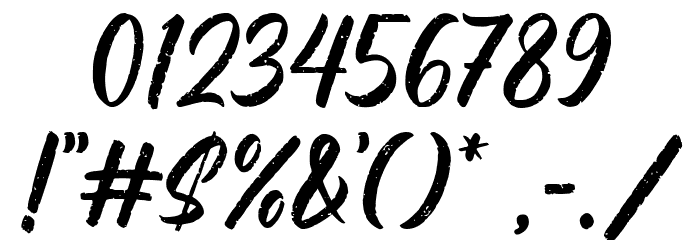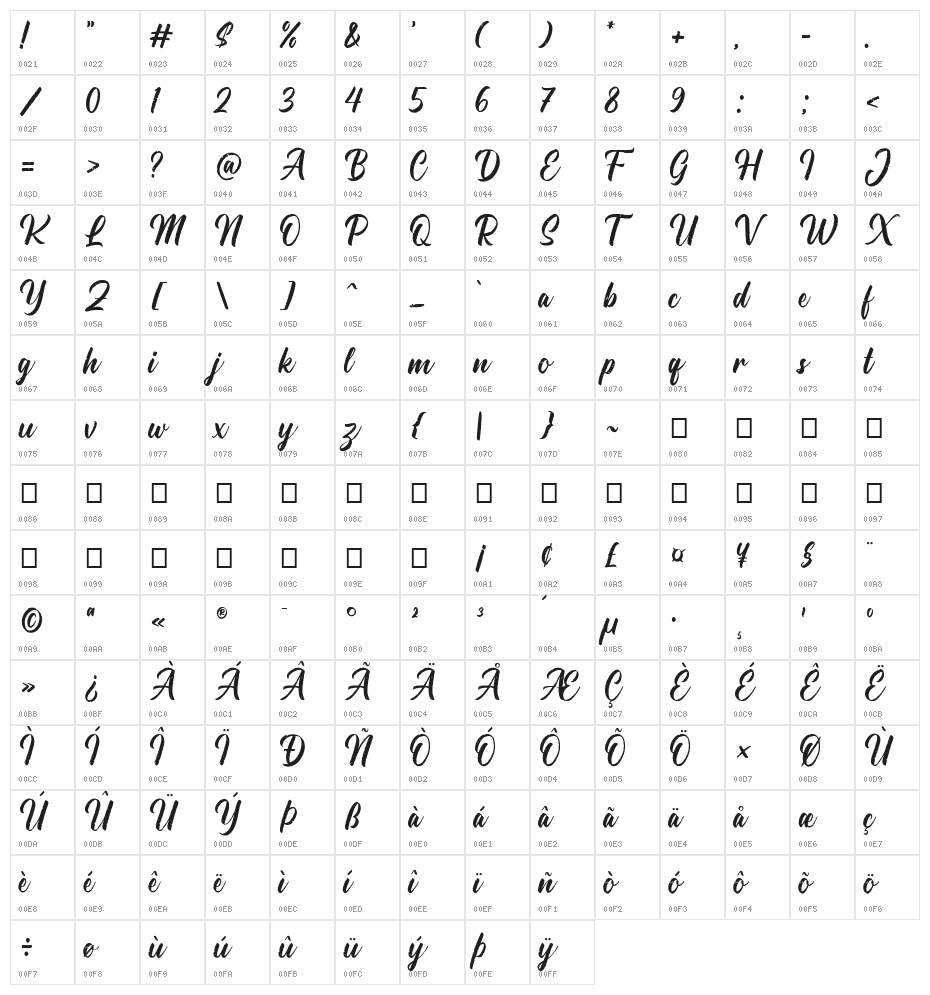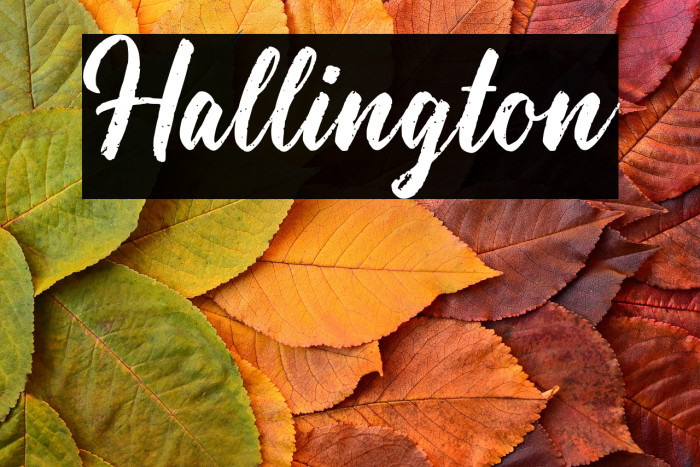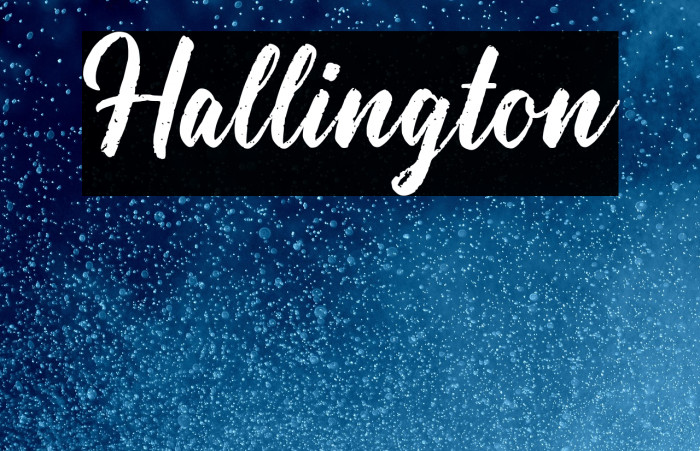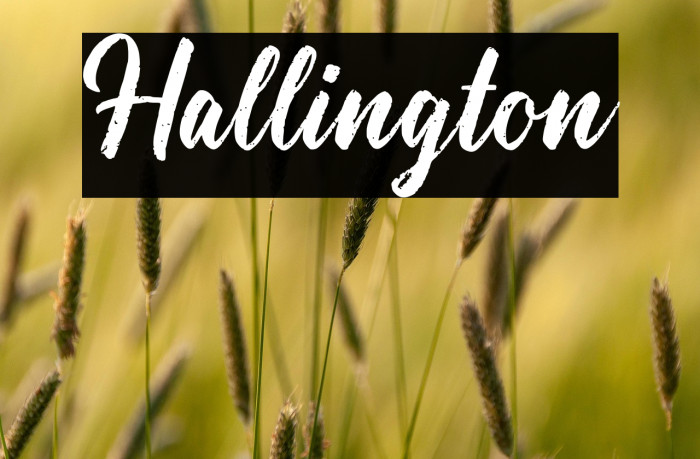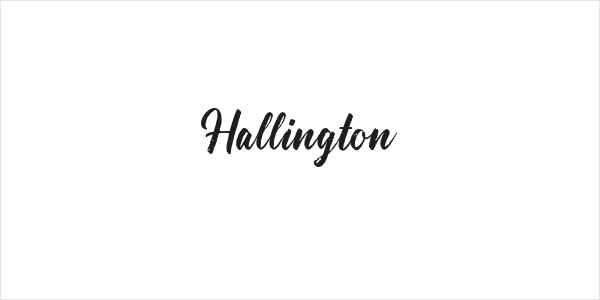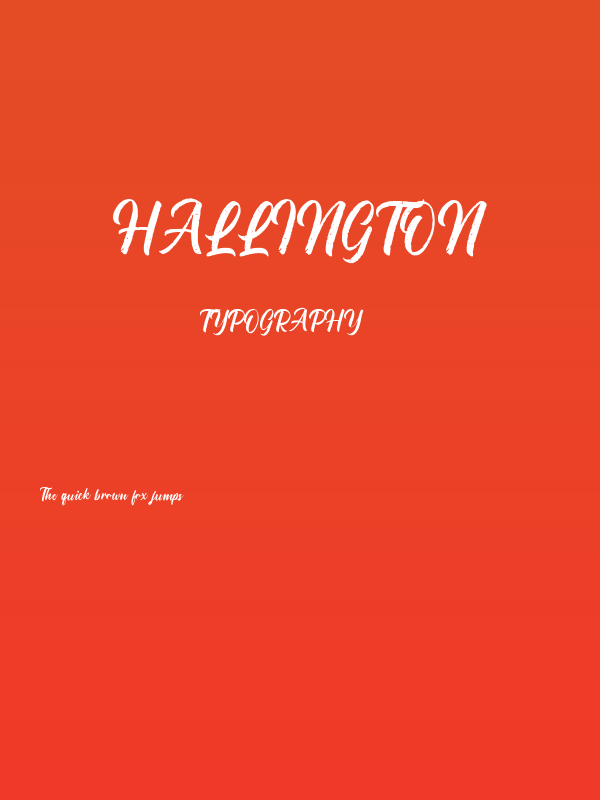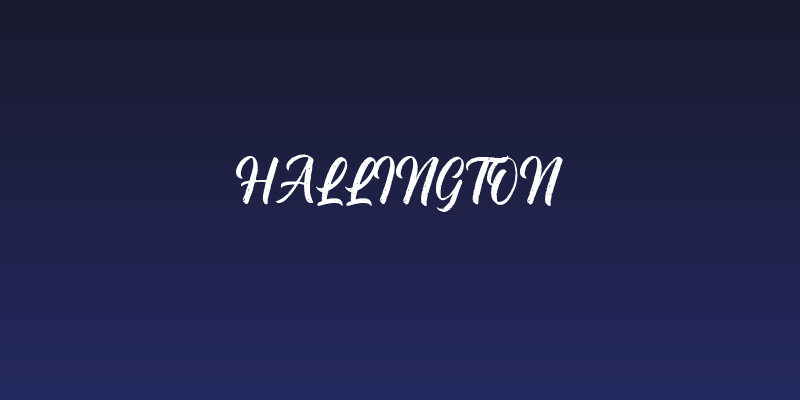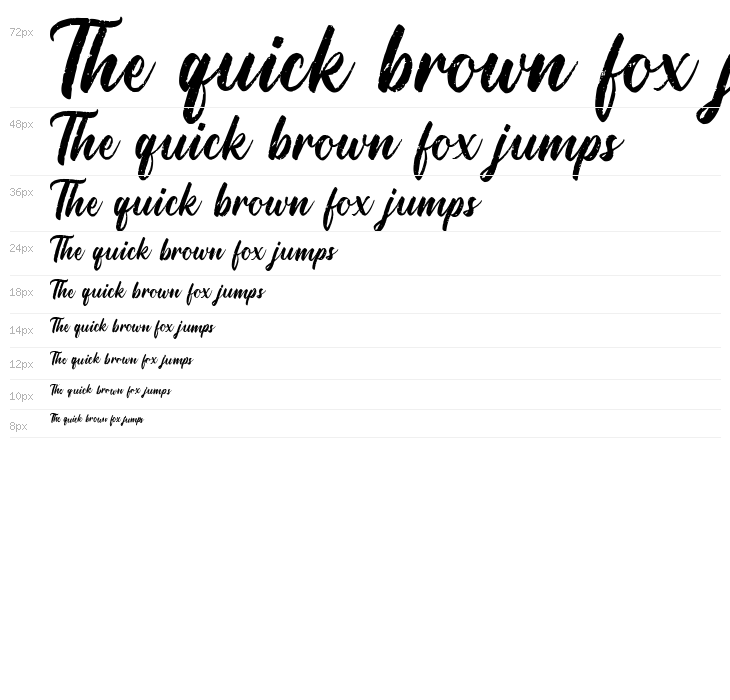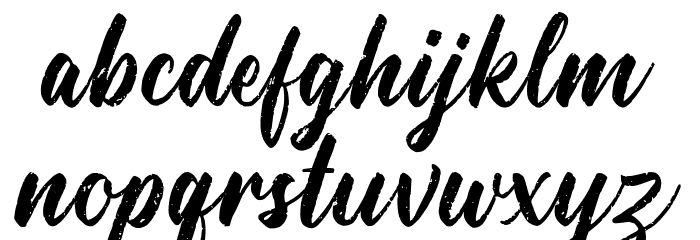
Hallington Font
Hallington Description
This font exudes a bold and dynamic script style, characterized by its flowing, cursive letters that convey a sense of elegance and movement. The strokes are thick and textured, giving it a handcrafted appearance, reminiscent of brush lettering. The uppercase letters are slightly more formal, while the lowercase letters maintain a casual, yet sophisticated flair. Numbers and special characters are consistent with the overall style, ensuring a cohesive look across all text. The font's unique texture adds depth and personality, making it stand out in any design.